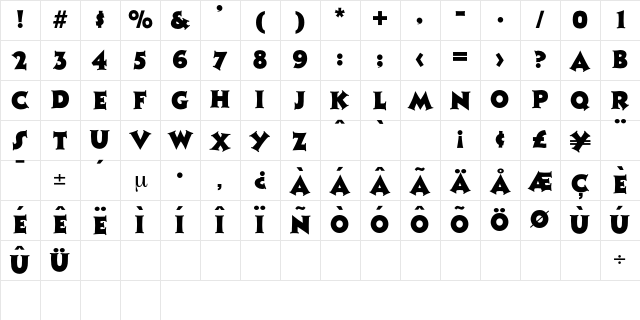
Monophon Regular Free Font
Monophon Regular
Design Context for Monophon
Monophon uses fixed-width spacing throughout, giving it the structured, systematic character associated with coding environments and technical documentation.
Pro Tip: Use Monophon with slightly increased line-height for extended reading - fixed-width spacing can feel dense in longer passages without extra breathing room.